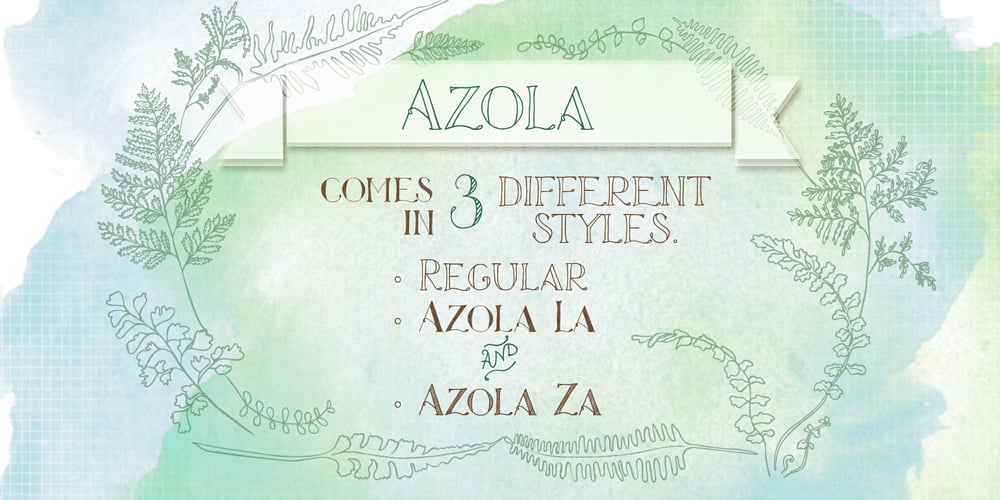
Azola Font Family was designed by Natsuko Hayashida and published by Okaycat. Azola contains 6 styles and family package options. The Azola font family is elegant, hand lettered & charming. Azola features extended characters, and contains West European diacritics & ligatures. Highly suitable for international environments & publications.